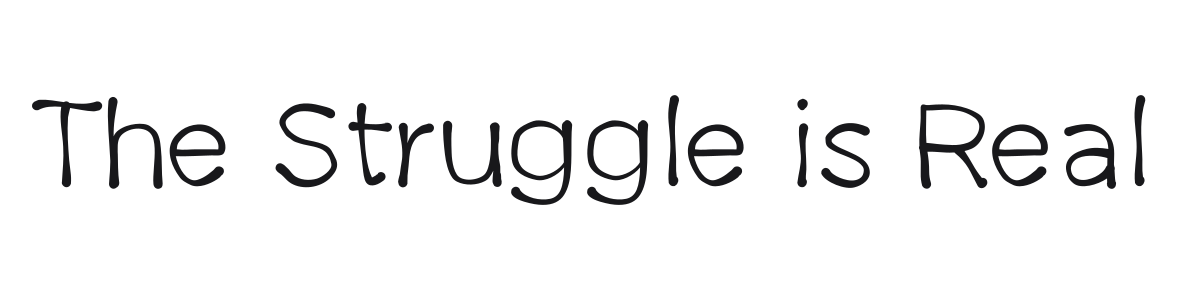
The Struggle is Real
The Struggle is Real is a thin, casual handwritten face from BessAsher Rebel with slightly wobbly letterforms that feel genuinely unforced, like notes scribbled in the margin of a notebook. The lightweight strokes and childlike irregularity give it a friendly, quirky personality without trying too hard. Best for informal contexts like personal blogs, greeting cards, social media graphics, or anywhere you want type that feels approachable and human.